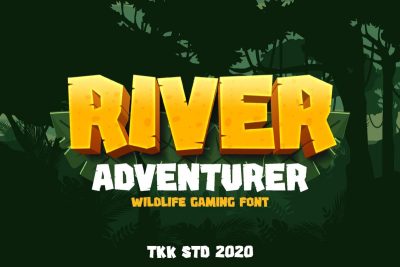
Gaming Font river adventurer
River Adventurer
Gaming Font River Adventurer delivers a vibrant and daring typeface that captivates audiences with its playful yet impactful style. This font brings excitement to every design, making it perfect for gaming, adventure-themed projects, and bold branding. Chunky letterforms, paired with dynamic detailing, ensure that it stands out while maintaining excellent readability across various mediums. Whether you design for video games, action-packed posters, or animated titles, this font ensures your message remains loud, clear, and visually compelling.
Gaming Font River Adventurer also embodies the spirit of exploration with its seamless combination of boldness and versatility. Creative professionals can use it for both digital and print formats, ensuring it meets the demands of diverse projects. Its unique charm and distinctive look elevate designs to the next level, creating a lasting impact on audiences.
Gaming Font River Adventurer Perfect for Creative Adventures
Designers in gaming and adventure-related industries will find the Gaming Font River Adventurer exceptionally versatile. Its vibrant and energetic design suits various applications, including video game titles, merchandise, and promotional campaigns. It performs exceptionally well on small screens and large-scale banners, maintaining a consistent visual impact across all platforms.
Additionally, this font works beautifully for gaming and branding projects, as well as educational content, themed events, or other creative endeavors requiring a bold statement. Its carefully crafted details allow designers to customize it effortlessly, helping them achieve the perfect balance between creativity and functionality. The fontโ€™s adventurous and playful character makes it ideal for bringing energy to any project.
By incorporating Font River Adventurer, you can craft designs that evoke excitement and discovery. This typeface acts as more than just a visual toolโ€”it becomes a storytelling element that captivates audiences of all ages. Use it to create action-packed visuals, playful designs, or any project that needs a dynamic and bold touch.
A wildlife vibe and adventurous blocky sans serif font, with all caps shape. It looks like a rock boulder from the riverbank, given a rough cut and shape into the alphabet.